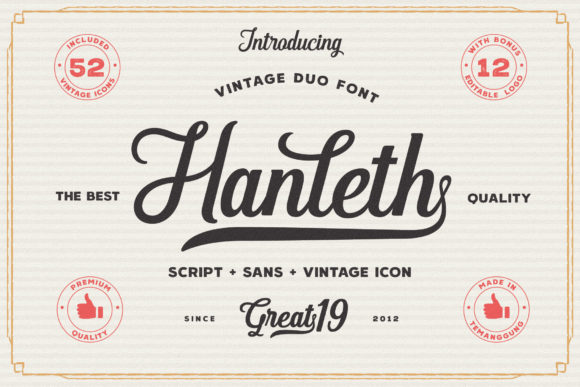
Dive into the world of typography with Hanleth Family Font, a display font that captivates with its enchanting beauty and captivating designs. Crafted by the talented great19, this font family is a symphony of creativity, inviting you to explore the realm of unique expressions.
Step into a world where words dance with elegance, where every letter is a masterpiece, and each phrase a captivating tale. Hanleth Family Font is not just a collection of characters; it's an artistic journey that transforms your designs into breathtaking visual experiences.
Discover the power of Hanleth's carefully crafted curves, each stroke imbued with emotion and personality. Its delicate serifs add a touch of sophistication, while its dynamic letterforms create a sense of movement and energy. Embrace the allure of Hanleth and watch your words take on a life of their own.
Immerse yourself in the endless possibilities of Hanleth Family Font. Its versatility knows no bounds, adapting effortlessly to a myriad of design projects. Whether you're creating logos, branding, posters, invitations, or any other creative endeavor, Hanleth will elevate your work to new heights of visual appeal.
Unleash your creativity and let Hanleth's charm inspire you. Its unique character adds a touch of magic to your designs, captivating your audience with its undeniable allure. Embrace the beauty of typography and watch your words transform into captivating works of art.